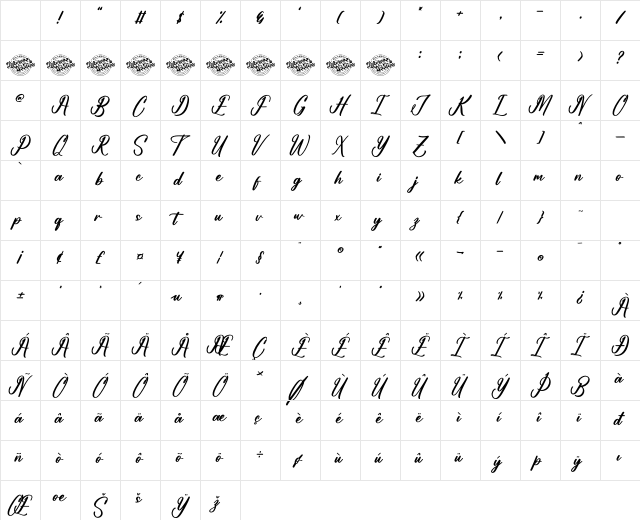
Complete Antholia Riechgan DEMO VERSION Regular glyph index. Displaying only characters natively supported by Antholia Riechgan DEMO VERSION Regular font.
Antholia Riechgan DEMO VERSION is a composed and adaptable typeface that performs quietly and consistently across a wide range of design contexts.